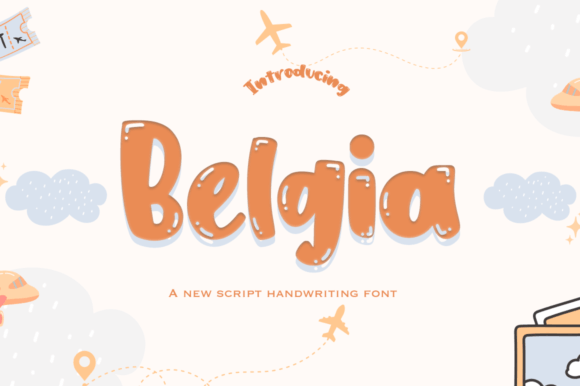
Introducing Belgia Font – A Masterpiece of Modern Design
Embark on a creative journey with Belgia Font, a script font family that exudes elegance and sophistication. Handcrafted with meticulous attention to detail, this font captures the essence of modern calligraphy, transforming your designs into breathtaking works of art.
Belgia's organic flow and graceful curves evoke a sense of authenticity and uniqueness. Its natural writing style adds a personal touch to your projects, making them stand out from the crowd. Whether you're a seasoned designer or just starting out, Belgia's user-friendly nature makes it the perfect choice for creating captivating visuals.
With its wide range of applications, Belgia Font is the ultimate tool for expressing your creativity. Dive into the world of branding, invitations, posters, logos, and more, knowing that Belgia will elevate your designs to new heights. Its versatility shines through in every context, allowing you to explore endless possibilities.
Belgia's charm lies in its ability to evoke emotions and transport viewers to a world of elegance and beauty. Its timeless appeal ensures that your designs will remain relevant and captivating for years to come.
Step into the realm of modern design with Belgia Font – the key to unlocking your creative potential. Transform your projects into works of art and leave a lasting impression on your audience. Indulge in the beauty of Belgia today and unlock a world of endless possibilities.